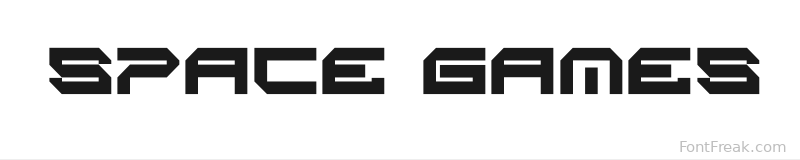
Space Games
The Space Games font by MaknaStudio is a captivating display typeface that embodies the essence of futuristic design with a playful twist. This font is characterized by bold, angular letterforms that give it a distinctively modern and dynamic appearance. The stroke weight is consistent, creating a sense of cohesion throughout the characters, while the spacing is ample, enhancing readability and ensuring that each letter stands out. The geometric shapes and sharp edges evoke a sense of adventure and excitement, making it particularly suitable for themes related to space and gaming.
Space Games is an ideal choice for various creative projects. It works exceptionally well for video game promotional materials, lending a sense of energy and excitement to posters and banners. Additionally, its unique aesthetic makes it perfect for children's book covers, where a fun and engaging visual style can draw in young readers. The font also shines in digital media, making it a great fit for websites or apps focused on gaming or science fiction. Moreover, it can add a quirky touch to merchandise designs, such as T-shirts or stickers, appealing to fans of retro gaming and space exploration.
Targeting graphic designers, small business owners, and content creators, Space Games appeals to those looking to inject a sense of fun and creativity into their work. Its freeware license allows for widespread use, making it accessible to anyone seeking to enhance their projects with a unique typeface.
In summary, the Space Games font stands out due to its bold visual impact and versatility, making it an excellent choice for a variety of applications. With the Space Games font free download, designers and creators can easily incorporate this striking typeface into their work, adding a touch of excitement and adventure.